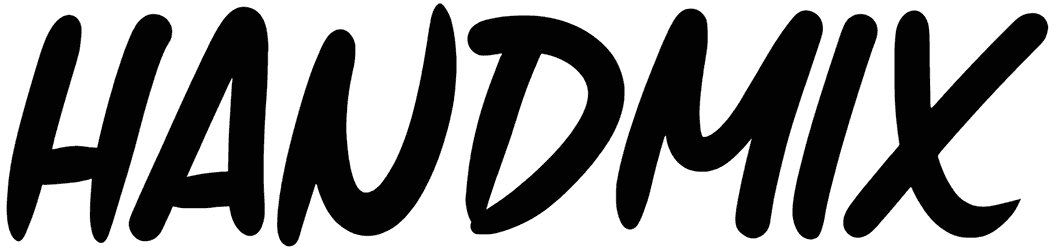
Handmix Font
Today’s suggestion from the ever-growing Resource Boy website refers to a warm script font that will make you delighted and eke a joy flavor to your project like a cherry pie.
Handmix with two gorgeous hand-made weights conveys the feeling of vitality and cozy. It gives a positive impact on your designs; logos, greeting cards, branding, or whatnot to turn them into a one-of-a-kind and artistic nature even without lowercase letters. In case you need to reach out more, browse our website 24/7.